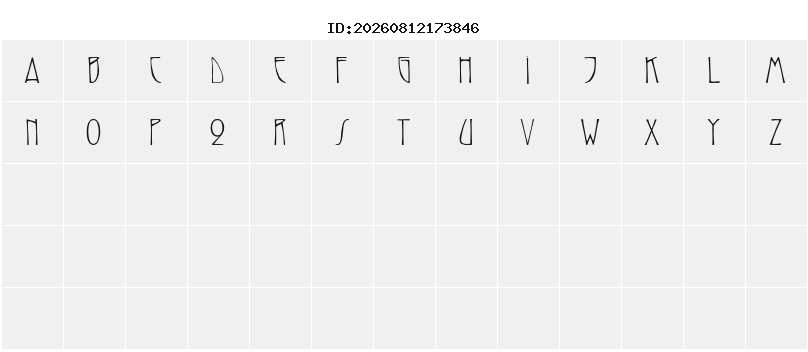
ReynoldsCaps Preview
• Font Name: ReynoldsCaps
• Full Font Name: ReynoldsCaps
• PostScript Name: ReynoldsCaps
About ReynoldsCaps.ttf
ReynoldsCaps.ttf is a modern, elegant sans-serif font designed for ultimate readability and visual harmony. Perfect for branding, headlines, web design, and print materials.